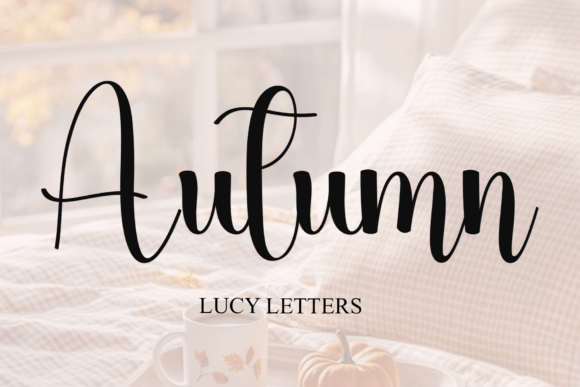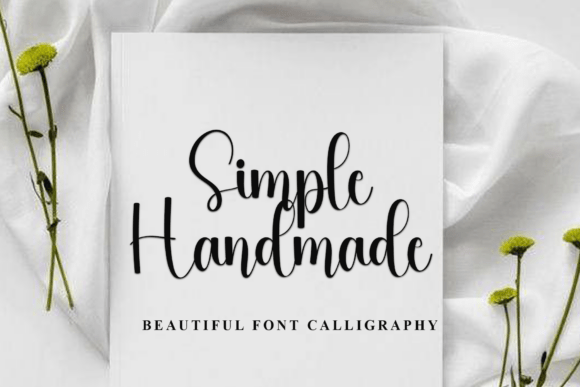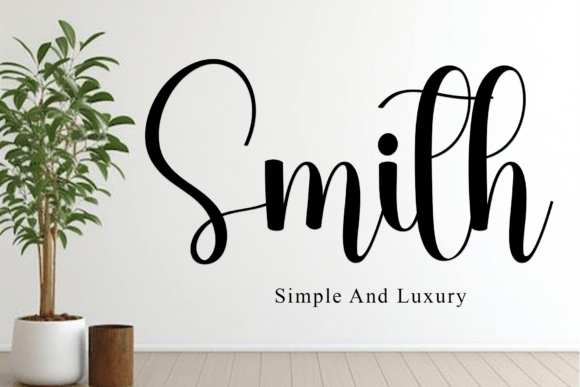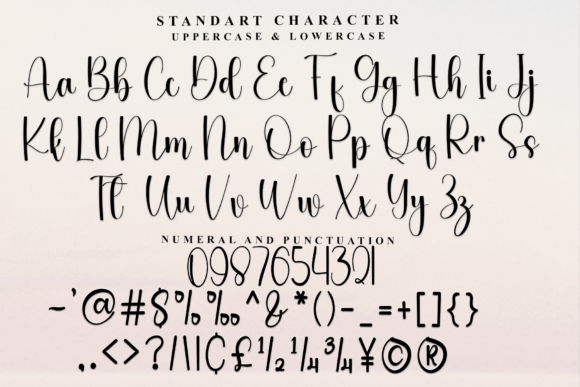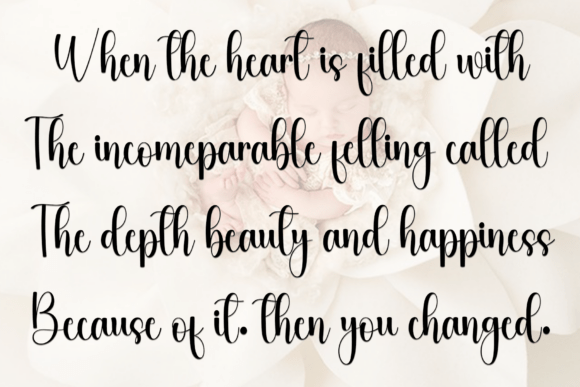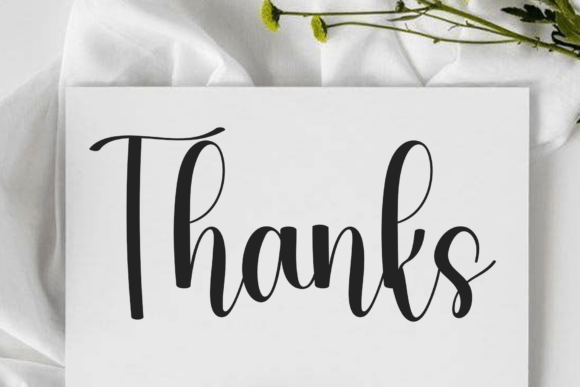
Discover the Charm of Geography Font: Elevate Your Designs with a Unique Touch
In the world of typography, a font can make or break a design. It’s the perfect blend of aesthetics and functionality that captures the audience’s attention. If you’re on the lookout for a font that stands out from the crowd, look no further than the Geography Font. Designed with a soft, unique touch, this beautiful font is sure to elevate your design projects, crafts, and other creative works.
The Distinctive Character of Geography Font
What sets Geography Font apart is its distinctive strokes, which give it a special character. This font is not just another addition to your typography arsenal; it’s a statement piece. The unique touch of Geography Font makes it meaningful and versatile, perfect for a wide range of applications. Whether you’re working on a design project, crafting a handmade card, or brainstorming ideas for your next art piece, this font is sure to inspire.
Endless Possibilities with Geography Font
One of the most exciting aspects of Geography Font is its versatility. With a variety of characters at your disposal, the possibilities are endless. This font is perfect for:
- Design projects: From brochures to posters, and from digital ads to website headers, Geography Font can add a touch of elegance and sophistication to your work.
- Crafts: Whether you’re making handmade cards, scrapbooking, or creating DIY projects, this font is sure to add a personal touch.
- Artistic and creative works: If you’re a painter, artist, or musician, Geography Font can be used to create stunning titles, captions, or even lyrics.
Why Choose Geography Font?
So, what makes Geography Font an ideal choice for your design projects? Here are a few reasons:
- Natural font style: Geography Font boasts a natural, effortless look that appeals to a wide range of audiences.
- Enhanced designs: With Geography Font, you can create stunning designs that capture attention and leave a lasting impression.
Geography Font is more than just a font – it’s a design element that can elevate your work to new heights. Its unique touch, versatility, and compatibility make it an ideal choice for designers, crafters, and artists. Whether you’re working on a professional project or a personal creative endeavor, Geography Font is sure to inspire and enhance your designs. So why wait? Discover the charm of Geography Font today and take your designs to the next level!
- Soft, unique touch
- Distinctive strokes
- Meaningful and versatile
- Variety of characters